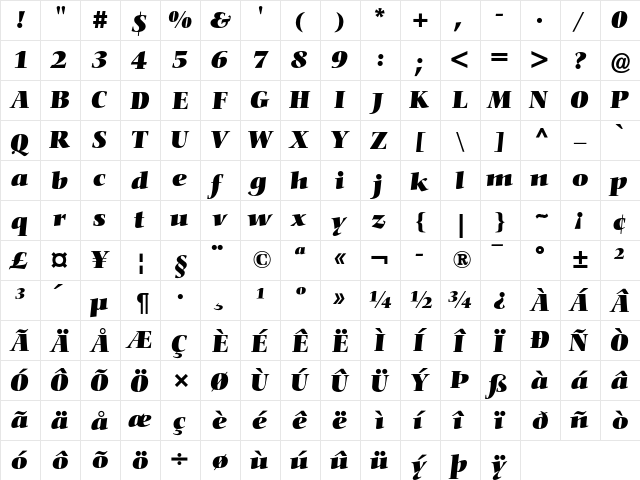
Nofret Bold Italic
Design Context for Nofret Typeface
Nofret takes a measured approach to typography — its balanced proportions and neutral character make it a reliable workhorse for both digital and print work. The slanted form adds forward momentum and visual energy. The heavy weight commands attention and anchors typographic hierarchies.
Pro Tip: Try Nofret for annotation and caption copy alongside an upright companion — the contrast in angle creates a dynamic but ordered typographic system.